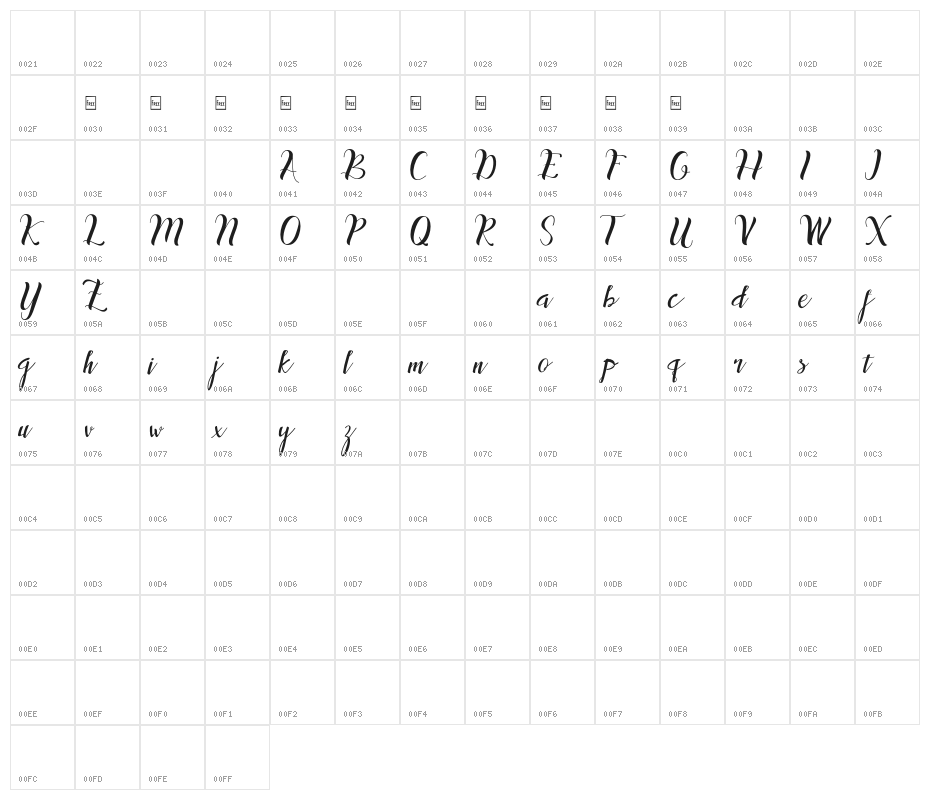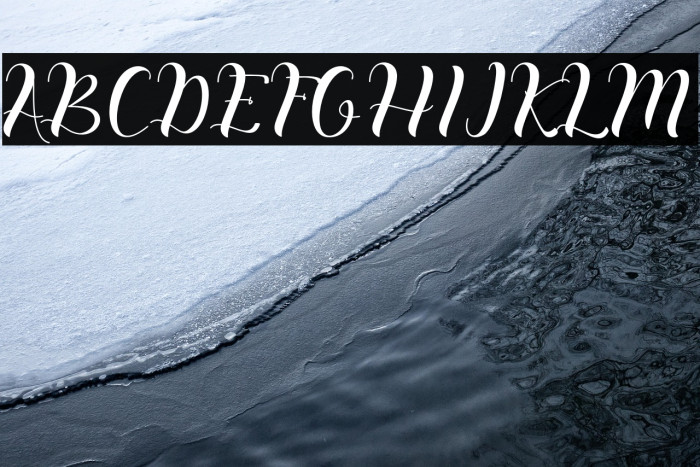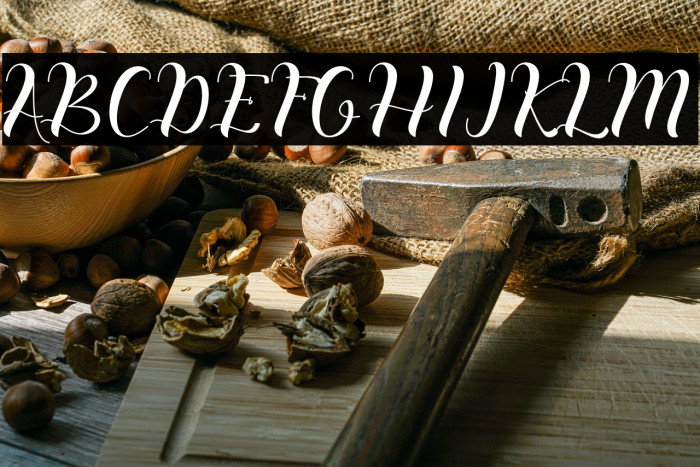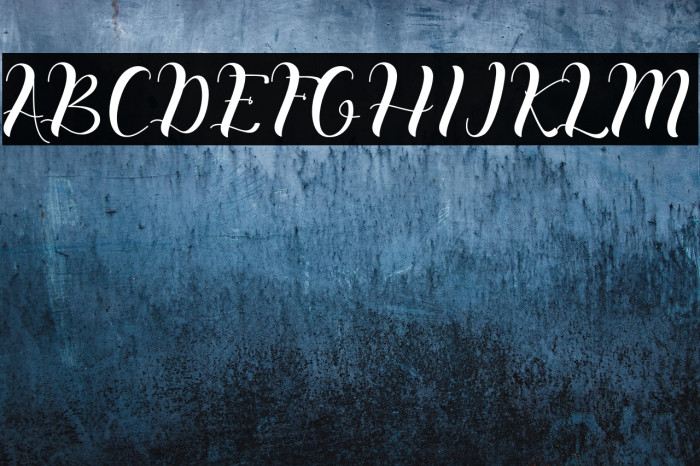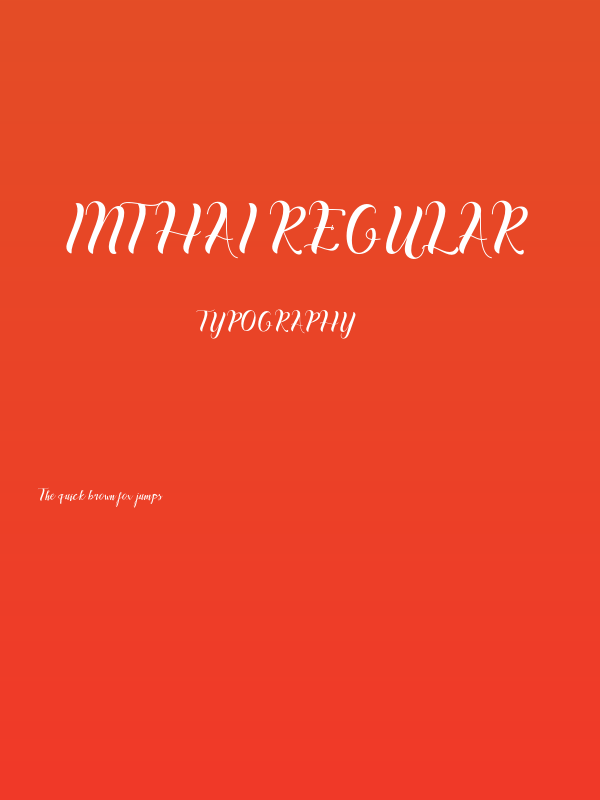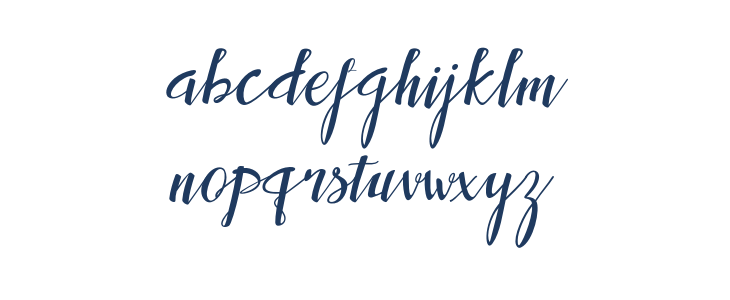
inthai-Regular Font
inthai-Regular Description
This font features an elegant and flowing script style, characterized by its smooth, cursive strokes and graceful curves. The uppercase letters exhibit a sophisticated flair with extended loops and swashes, while the lowercase letters maintain a consistent fluidity, enhancing readability. The overall design exudes a sense of refinement and artistic expression, making it suitable for creative and formal applications. The font's unique style is accentuated by its moderate contrast in stroke thickness, providing a balanced and harmonious appearance.
Overall StyleElegant, Artistic
Use CaseLogos, Invitations, Branding
Proposed ProjectsIdeal for wedding invitations, greeting cards, branding, and elegant logo designs.